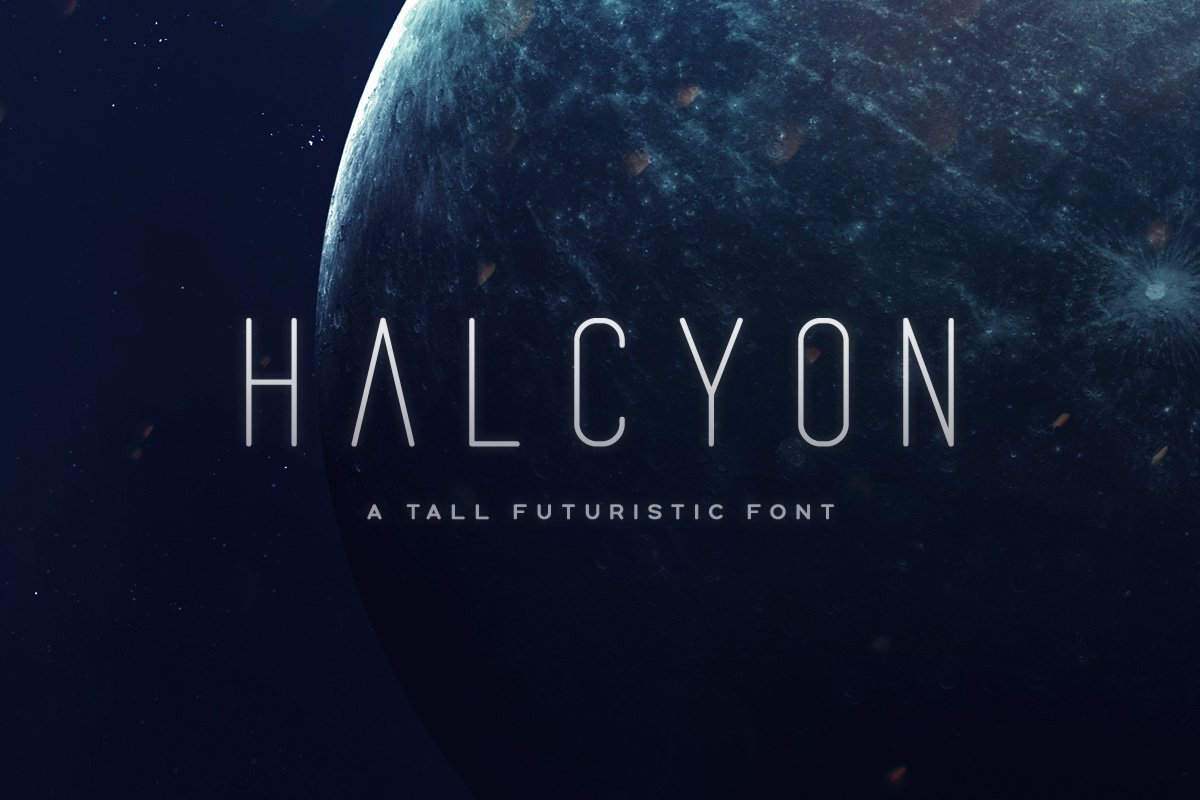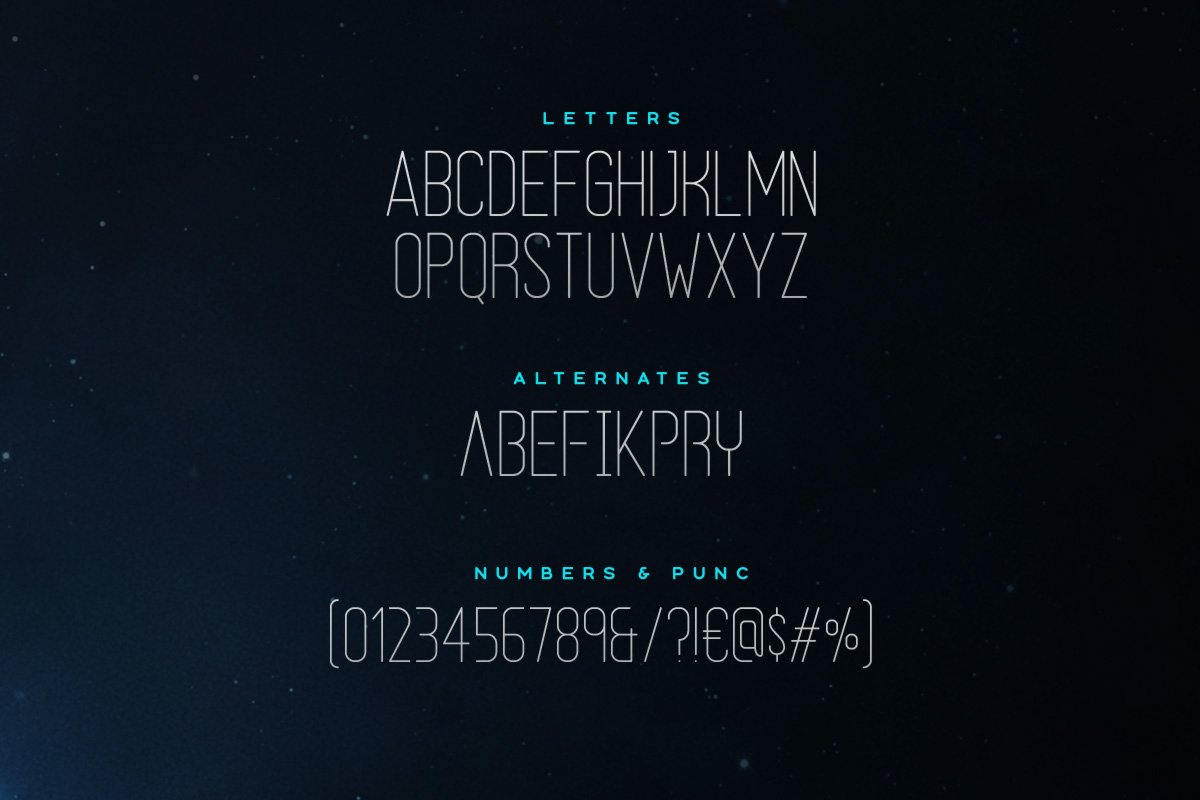
About the Halcyon Typeface Font
Halcyon is a tall, rounded futuristic typeface that comes in two weights, The alternate letters can be toggled via Caps Lock, Feel free to contact me via my website from the link below if you have any questions, https://www, tugcu, co/about